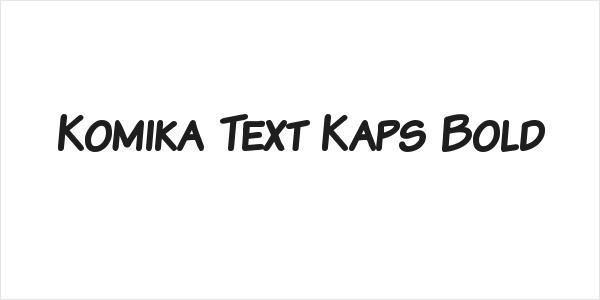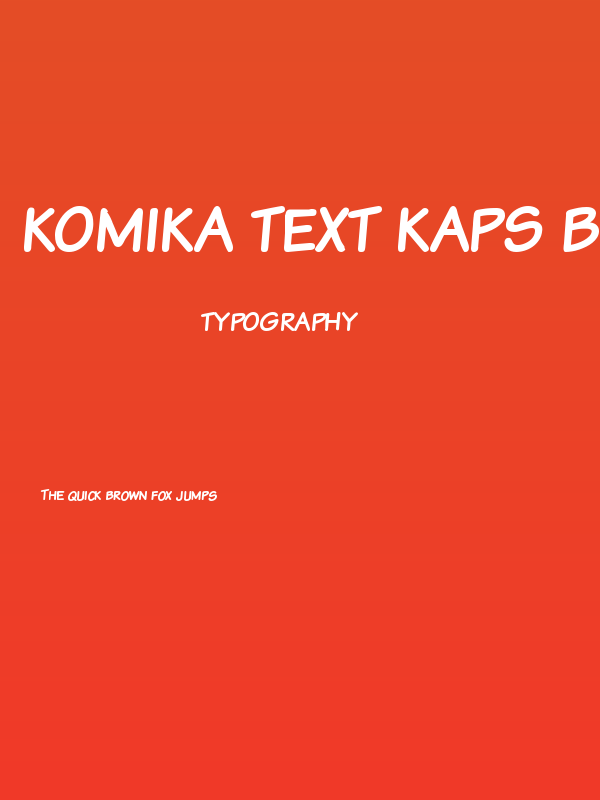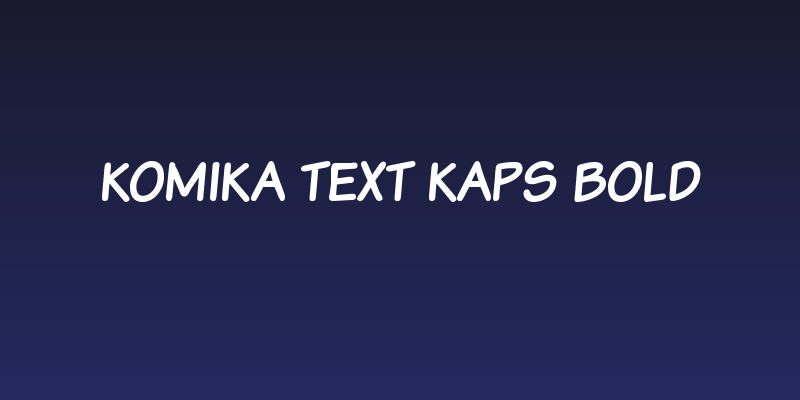
Komika Text Kaps Bold Font
Komika Text Kaps Bold Description
This font features bold, rounded characters with a playful and informal style. The letters are slightly slanted, giving a dynamic and energetic feel. The strokes are consistent in thickness, contributing to a uniform appearance. The numbers and special characters maintain the same playful aesthetic, making it suitable for casual and fun designs. The overall look is approachable and friendly, ideal for projects that aim to convey a sense of humor or lightheartedness.
| Proposed Projects | Ideal for comic books, children's books, playful branding, and informal posters. |